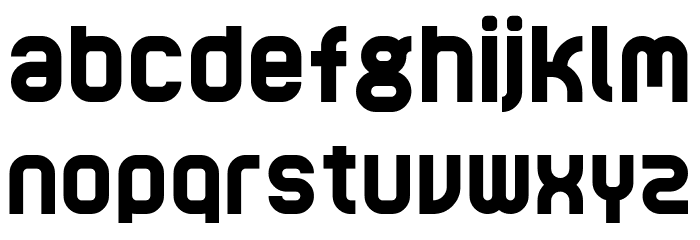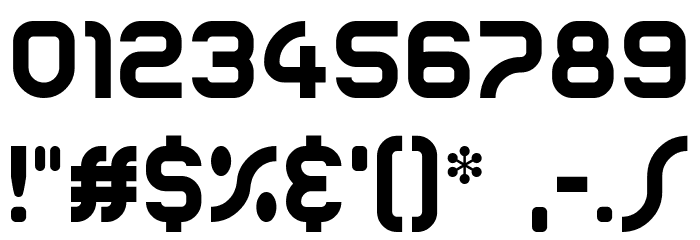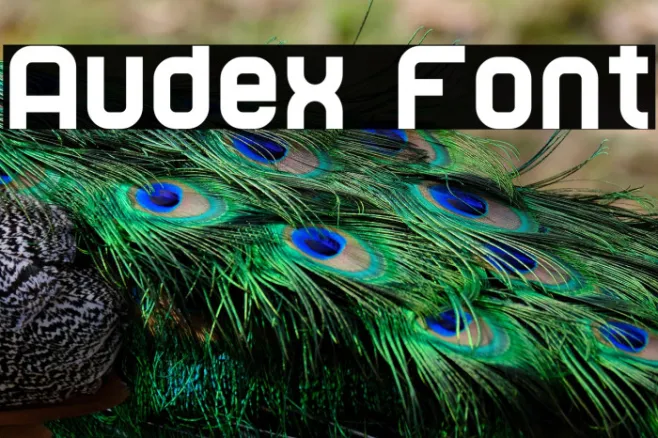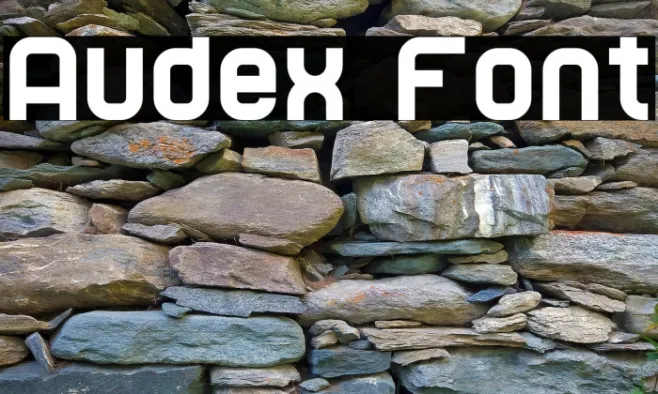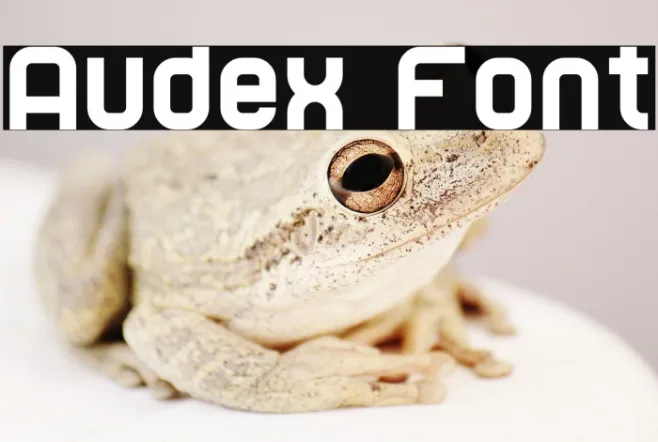
Audex Font
This font features a bold, geometric design with rounded edges, giving it a modern and futuristic appearance. The characters are uniformly constructed, with consistent stroke widths that convey a sense of stability and strength. The uppercase and lowercase letters maintain a cohesive style, while the numerals and special characters complement the overall aesthetic. The font's clean lines and minimalistic approach make it versatile for various design applications, offering a contemporary look that is both functional and visually appealing.
A bold, geometric font with rounded edges and a modern, futuristic style.
- Proposed Projects: Ideal for technology branding, modern advertising, digital interfaces, and futuristic-themed projects.
- Use Case: Headlines, Logos, Digital interfaces